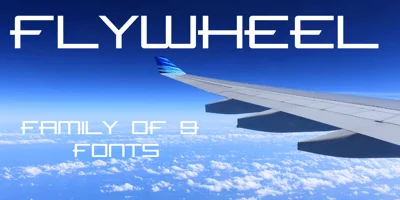
Summer Festival Fonts: Vibrant Typography for Music Events
Summer music festivals represent the pinnacle of American cultural celebration, where typography must capture the electric energy of live music, the freedom of outdoor gatherings, and the diverse personalities of artists and audiences converging for unforgettable experiences. From the iconic lettering of Coachella's palm tree aesthetic to Bonnaroo's psychedelic wanderlust, festival typography creates the visual identity that transforms musical events into cultural movements.
The American festival circuit generates over $2.7 billion annually, with typography playing a crucial role in distinguishing events, attracting target audiences, and creating the immersive brand experiences that keep festivalgoers returning year after year. Understanding how to select and implement festival typography can elevate music events from simple concerts into branded cultural experiences that resonate long after the final encore.
This comprehensive guide explores the vibrant world of summer festival typography, examining genre-specific font strategies, audience psychology, and practical implementation techniques for creating music event graphics that capture the magic of American festival culture.
The Psychology of Festival Typography
Energy and Excitement Translation
Festival typography must translate the kinetic energy of live music into static visual communications that generate excitement and anticipation among potential attendees. Unlike corporate communications that prioritize clarity and professionalism, festival fonts can embrace boldness, experimentation, and visual impact that mirrors the dynamic nature of musical performance.
American festival audiences seek authentic experiences that feel spontaneous and exciting rather than overly produced or commercial. Typography choices that feel too polished or corporate can alienate music fans seeking genuine artistic expression and countercultural authenticity.
The most effective festival fonts capture the spirit of musical genres while remaining readable across diverse applications from large-scale banners to smartphone screens, ensuring that excitement doesn't compromise practical communication needs.
Genre Identity and Audience Targeting
Different musical genres attract distinct audience demographics with varying aesthetic preferences and cultural associations. Festival typography must align with genre expectations while appealing to specific audience characteristics that influence ticket sales and brand loyalty.
Electronic dance music festivals favor futuristic, geometric fonts that suggest technological innovation and cutting-edge production values. Rock festivals often choose bold, aggressive fonts that convey power and rebellious energy. Indie music events typically prefer handcrafted, authentic fonts that suggest artistic integrity and creative independence.
Understanding these genre-specific expectations enables strategic font selection that immediately communicates musical identity while attracting target audiences and building appropriate anticipation for festival experiences.
Community and Belonging Signals
Summer festivals create temporary communities where typography serves as visual shorthand for shared values, musical taste, and cultural identity. Font choices help establish the social and cultural boundaries that define festival communities while welcoming newcomers who align with event values.
Festival typography often references subcultural aesthetics and countercultural movements that resonate with target audiences seeking authentic artistic experiences and community connection. These visual references create immediate recognition among insiders while potentially excluding audiences who don't share cultural background or aesthetic preferences.
Electronic Dance Music Festival Typography
Futuristic Minimalism and Geometric Precision
EDM festivals require typography that suggests technological innovation, future-forward thinking, and the precise production values that define electronic music culture. These events attract audiences seeking cutting-edge musical experiences and immersive technological environments.
Orbitron: This geometric sans-serif perfectly captures the futuristic aesthetic essential for EDM festival communications. Its spaceship-inspired letterforms suggest technological advancement and cosmic exploration while maintaining excellent readability for practical festival applications.
Exo: With its technological character and geometric precision, Exo provides the clean, modern aesthetics that appeal to EDM audiences while offering the comprehensive weight range necessary for complex festival communications across multiple platforms and applications.
Space Mono: This monospace font brings coding culture aesthetics to festival typography, appealing to EDM audiences that appreciate technological sophistication and digital culture references. Its unique character works particularly well for festival lineup announcements and artist billing materials.
Neon Aesthetics and Glow Effects
EDM festival typography often incorporates neon aesthetics and glow effects that reference nightclub culture and electronic music's nocturnal associations. These visual elements create immediate recognition among electronic music fans while suggesting the immersive lighting experiences that define EDM events.
Righteous: This Art Deco-influenced font provides the geometric character perfect for neon treatments and glow effects while maintaining readability across festival applications from massive stage displays to mobile device screens.
Bungee: With its vertical emphasis and bold character, Bungee works exceptionally well for EDM festival applications requiring maximum visual impact and distinctive character that cuts through crowded festival marketing environments.
Rock and Alternative Festival Typography
Power and Rebellion Aesthetics
Rock festivals require typography that conveys musical power, rebellious spirit, and authentic rock culture aesthetics. These events attract audiences seeking genuine musical experiences and countercultural authenticity rather than mainstream commercial entertainment.
Bebas Neue: This condensed, all-caps font delivers the aggressive impact perfect for rock festival communications. Its industrial strength and no-nonsense character appeal to rock audiences while providing excellent readability for practical festival applications.
Oswald: With its condensed proportions and bold character, Oswald captures the intensity and focus that defines rock music culture. Its strong presence works well for festival headliner announcements and high-impact promotional materials.
Impact: This classic condensed font provides the raw power and straightforward communication that resonates with rock audiences seeking authentic musical experiences without unnecessary decoration or commercial polish.
Grunge and Distressed Typography
Alternative and indie rock festivals often embrace grunge aesthetics and distressed typography that suggests authenticity, underground culture, and resistance to mainstream commercial music. These visual approaches appeal to audiences seeking genuine artistic expression and countercultural identity.
Amatic SC: This hand-drawn font provides the authentic, slightly imperfect character that appeals to indie rock audiences while maintaining enough structure for practical festival communications across diverse applications.
Creepster: For alternative festivals embracing darker or more experimental musical genres, this horror-inspired font provides distinctive character while maintaining readability for essential festival information.
Hip-Hop and Urban Festival Typography
Street Culture and Authentic Expression
Hip-hop festivals require typography that reflects street culture authenticity, urban aesthetics, and the bold self-expression that defines hip-hop music and culture. These events attract audiences seeking genuine cultural experiences and artistic innovation rather than mainstream commercial entertainment.
Fredoka One: This bold, rounded font captures the playful energy and confident expression that characterizes hip-hop culture while maintaining excellent readability for festival communications targeting diverse urban audiences.
Righteous: With its strong character and cultural references, Righteous works well for hip-hop festivals seeking distinctive typography that suggests both historical awareness and contemporary relevance.
Custom Graffiti-Inspired Approaches
Hip-hop festival typography often references graffiti culture and street art aesthetics that resonate with audiences appreciating urban artistic expression and countercultural authenticity.
While free fonts may not fully capture graffiti aesthetics, fonts like Permanent Marker and Kalam provide handwritten character that suggests street culture influences while maintaining practical readability for festival applications.
Folk and Americana Festival Typography
Handcrafted Authenticity and Traditional Values
Folk festivals require typography that suggests handcrafted quality, traditional American values, and authentic artistic expression rooted in cultural heritage rather than commercial innovation.
Amatic SC: This hand-drawn font perfectly captures the authentic, slightly imperfect character that appeals to folk audiences seeking genuine artistic expression and traditional cultural experiences.
Dancing Script: This flowing script font suggests the personal, storytelling tradition that defines folk music while maintaining readability for festival communications targeting diverse audience demographics.
Cabin: With its friendly, approachable character, Cabin provides the honest communication style that resonates with folk audiences while offering enough sophistication for professional festival presentations.
Vintage Americana Aesthetics
Folk festivals often embrace vintage Americana aesthetics that reference historical musical traditions and cultural heritage, appealing to audiences seeking authentic American cultural experiences.
Fredericka the Great: This decorative font provides historical character perfect for festivals emphasizing traditional American musical heritage while maintaining distinctive visual impact.
Rye: With its vintage character and playful personality, Rye works well for folk festivals seeking typography that suggests both historical awareness and contemporary accessibility.
Multi-Genre Festival Typography Strategies
Versatile Foundation Fonts
Large festivals featuring diverse musical genres require typography systems that work across different musical styles while maintaining consistent festival identity and practical functionality.
Montserrat: This geometric sans-serif provides the versatility necessary for multi-genre festivals while offering enough character for distinctive festival identity. Its extensive weight range enables flexible application across diverse musical contexts.
Source Sans Pro: Adobe's foundational font provides the reliability and readability essential for complex festival communications while maintaining enough neutrality to work across diverse musical genres and audience expectations.
Lato: Combining warmth with professional capability, Lato works well for festivals seeking broad appeal across diverse musical genres while maintaining approachable character that welcomes diverse audiences.
Genre-Specific Accent Typography
Multi-genre festivals often employ primary fonts for overall festival identity while using genre-specific accent fonts for individual stage branding or artist-specific communications.
This approach enables festivals to maintain consistent overall identity while acknowledging the distinct character and audience expectations associated with different musical genres represented at the event.
Practical Implementation Considerations
Scalability Across Applications
Festival typography must perform effectively across enormous range of applications from massive stage banners visible from hundreds of yards away to detailed mobile app interfaces viewed on small smartphone screens.
Choose fonts with excellent hinting and readability characteristics that maintain visual impact at large sizes while remaining legible at small sizes across diverse viewing conditions and device types.
Weather and Outdoor Durability
Summer festivals operate in challenging outdoor environments where typography must remain readable despite bright sunlight, adverse weather conditions, and extended exposure to elements.
High contrast font choices and bold weights help ensure readability in bright outdoor lighting conditions while simple, clean letterforms minimize visual confusion in challenging viewing environments.
Printing and Production Considerations
Festival materials span diverse production methods from large-format digital printing for banners and signage to small-format screen printing for merchandise and promotional materials.
Select fonts that reproduce well across different printing methods and material types while maintaining visual consistency and brand recognition across all festival touchpoints.
Digital Platform Optimization
Social Media Festival Marketing
Festival promotion relies heavily on social media platforms with specific technical requirements and audience behaviors that influence optimal typography choices.
Instagram and Visual Platforms: Use bold, readable fonts like Oswald or Bebas Neue that remain legible in small preview images while capturing scroll-stopping attention in crowded social media feeds.
Facebook Event Pages: Choose fonts like Montserrat or Source Sans Pro that work well for longer festival descriptions and event information while maintaining visual appeal for diverse audience demographics.
TikTok and Video Content: Employ fonts like Fredoka One or Righteous that work well for dynamic video content while maintaining readability across different device types and viewing conditions.
Mobile App Typography
Festival apps require typography that ensures critical information remains accessible across diverse user scenarios from bright outdoor environments to crowded nighttime venues.
Navigation and Wayfinding: Use highly readable fonts like Source Sans Pro or Open Sans that ensure users can quickly access essential festival information under challenging conditions.
Artist Information and Schedules: Choose fonts that balance visual appeal with practical readability, often employing Lato or Nunito for content that users will reference frequently throughout festival experiences.
Merchandise and Branding Applications
T-Shirt and Apparel Design
Festival merchandise represents significant revenue opportunities while serving as year-round marketing materials that extend festival brand awareness beyond event dates.
Screen Printing Optimization: Choose fonts with substantial weight and clear details that reproduce well in screen printing applications across different fabric types and color combinations.
Vintage and Collectible Appeal: Consider fonts that will age well and maintain appeal as vintage collectibles, often favoring classic options like Bebas Neue or Oswald over trendy alternatives with limited longevity.
Poster and Print Collectibles
Festival posters often become valuable collectibles that require typography choices balancing immediate promotional impact with long-term artistic and cultural value.
Artist Billing Hierarchy: Use fonts that create clear hierarchy for headliner announcements while maintaining readability for supporting artist listings across complex poster layouts.
Artistic Integration: Choose fonts that complement artistic poster elements and overall festival aesthetic while maintaining practical functionality for promotional purposes.
Summer festival typography operates at the intersection of music culture, visual communication, and brand building, creating the visual languages that define American music festival experiences. The fonts you choose don't just convey information – they create the cultural identity and emotional framework that transforms musical events into memorable cultural experiences.
Whether you're designing for intimate indie festivals or massive multi-genre celebrations, understanding genre expectations, audience psychology, and practical implementation requirements enables typography choices that authentically represent musical culture while achieving promotional and branding objectives.
The most successful festival typography captures the authentic spirit of musical genres and festival culture while remaining practical enough for the complex communication requirements of modern music events. By balancing cultural authenticity with functional effectiveness, festival typography can create the visual foundation for musical experiences that resonate with audiences long after the final song ends.